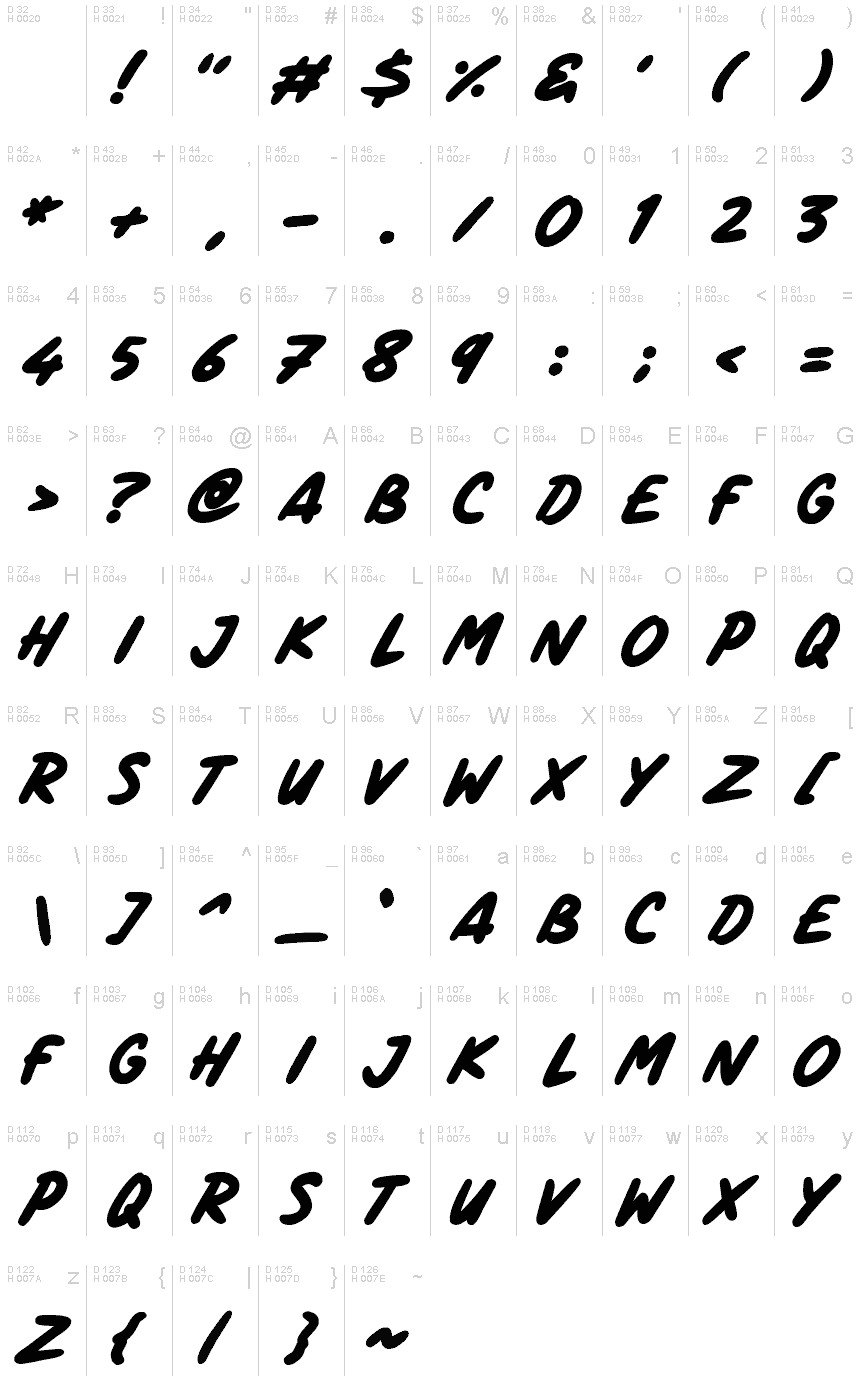
Marker Notes Italic
Marker Notes Italic is a bold, dynamic font that exudes a sense of playfulness and energy. Designed by Darrell Flood of Hawtpixel, this display-style comic font boasts a distinctive handwritten aesthetic, with a touch of whimsy that instantly commands attention.
The italic style adds a sense of movement and fluidity, making it an ideal choice for attention-grabbing headlines, logo designs, and other creative projects that seek to convey a lively, informal tone.
Its versatility extends to various applications, from branding and packaging to editorial design and advertising, where its captivating personality can truly shine.